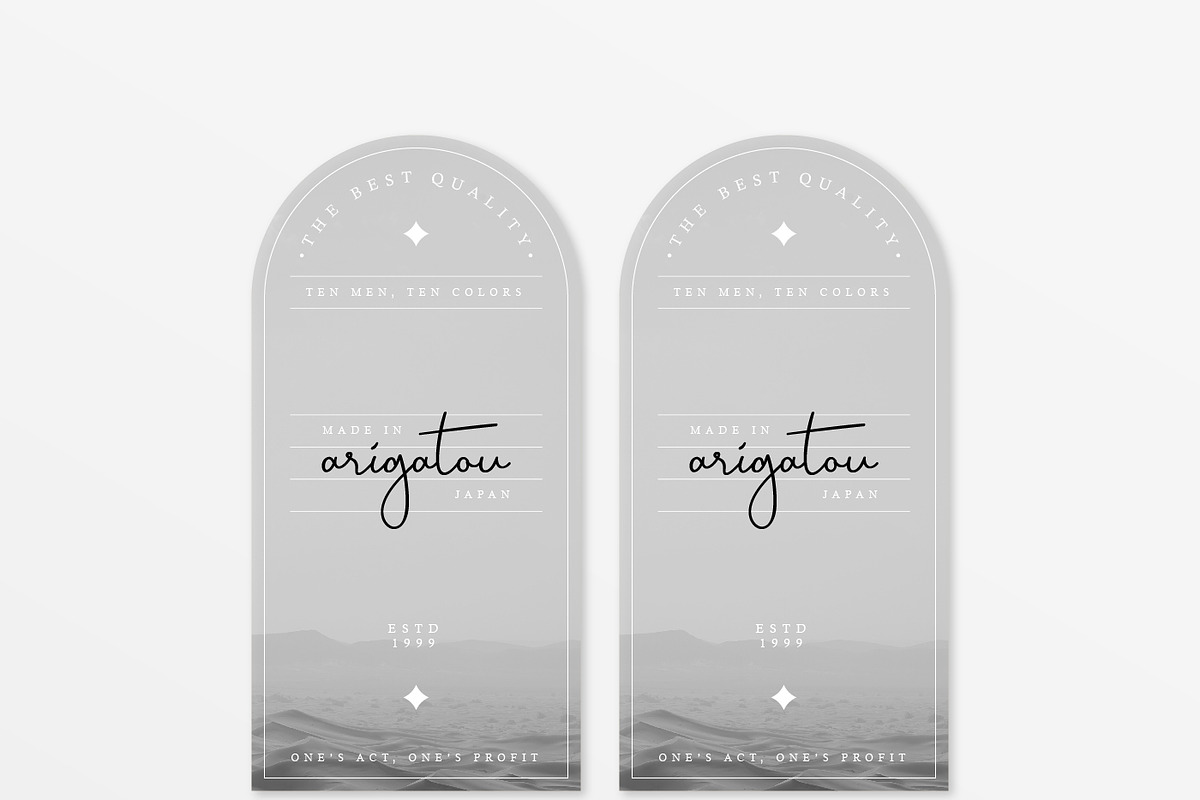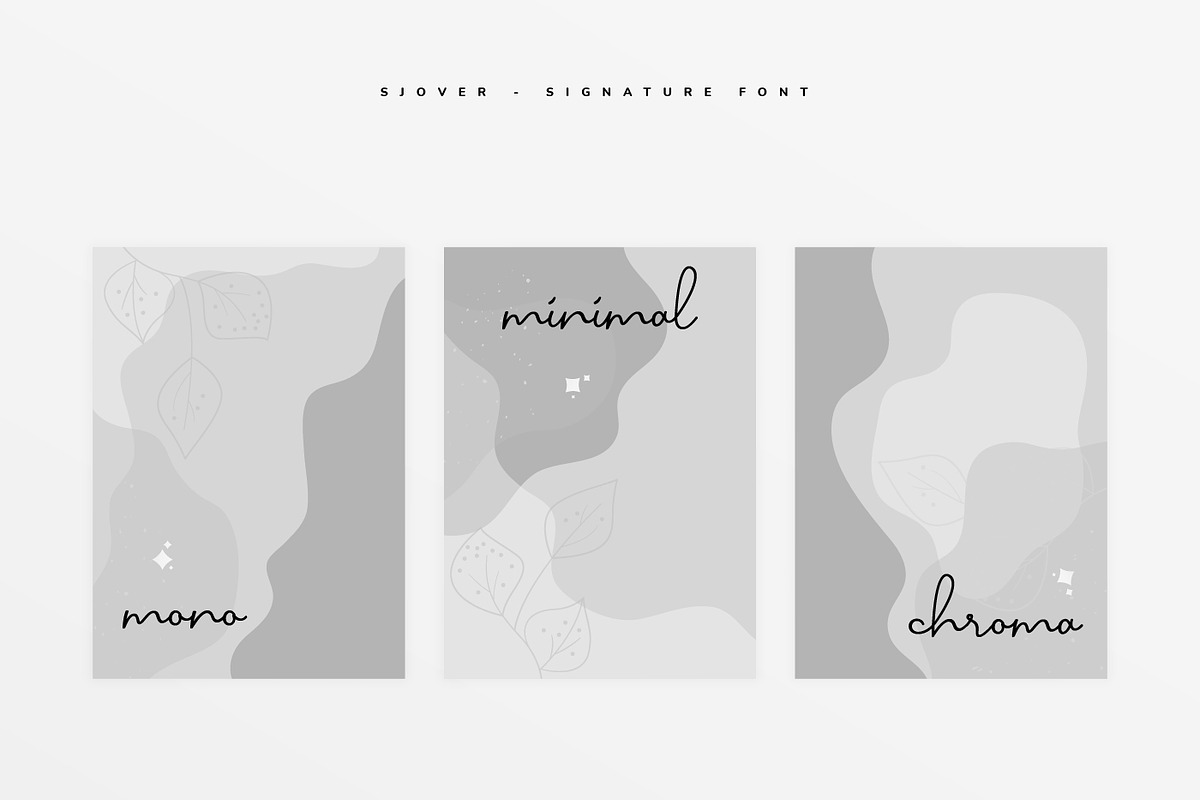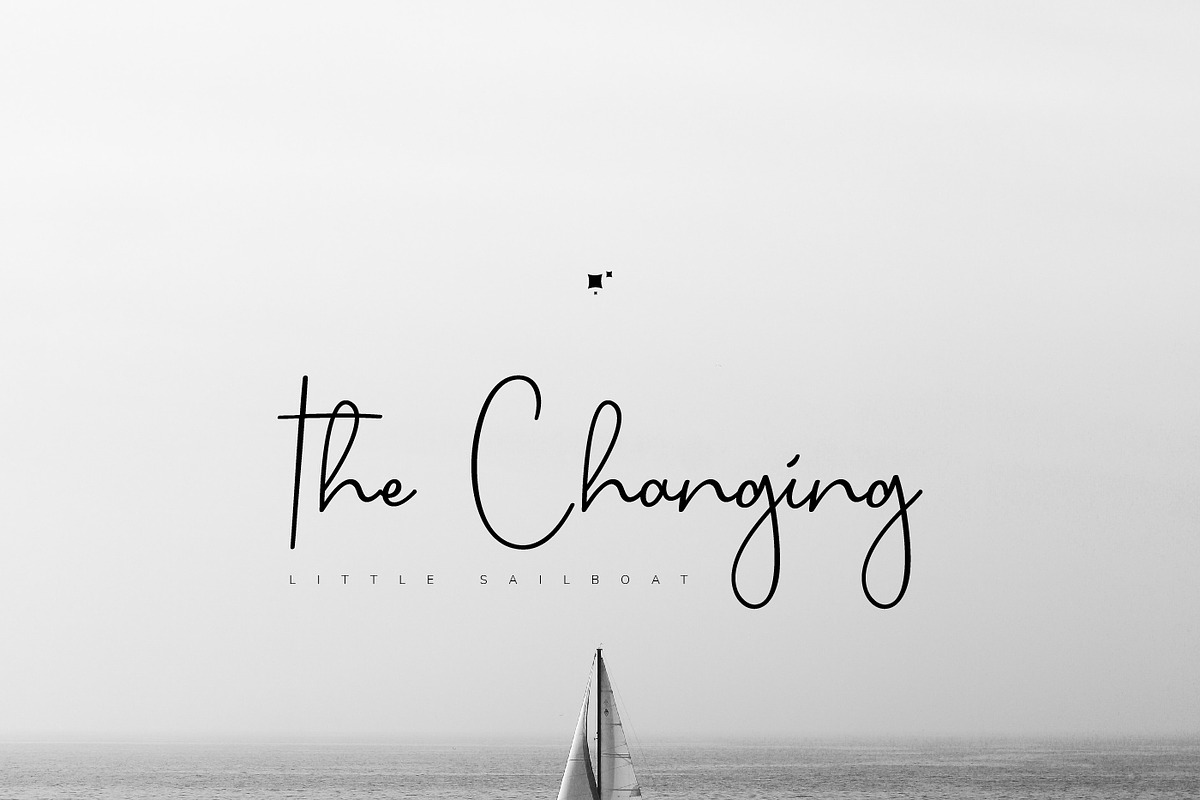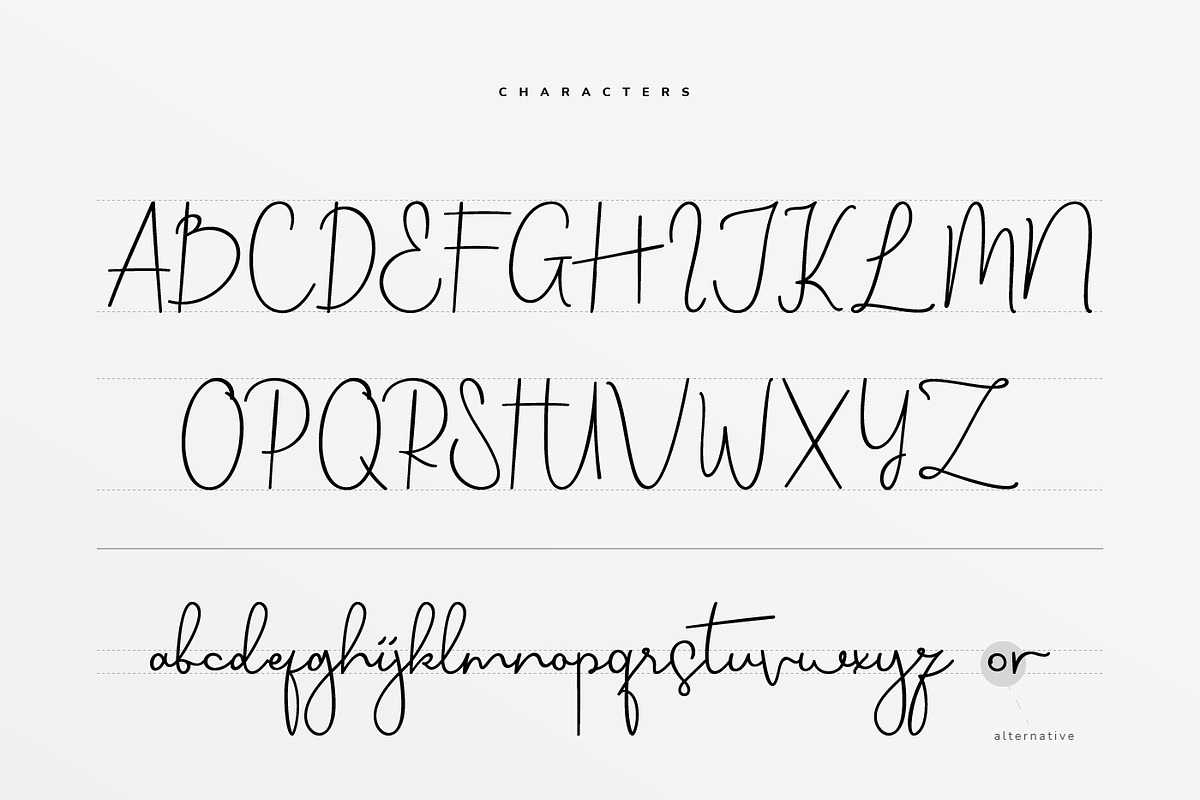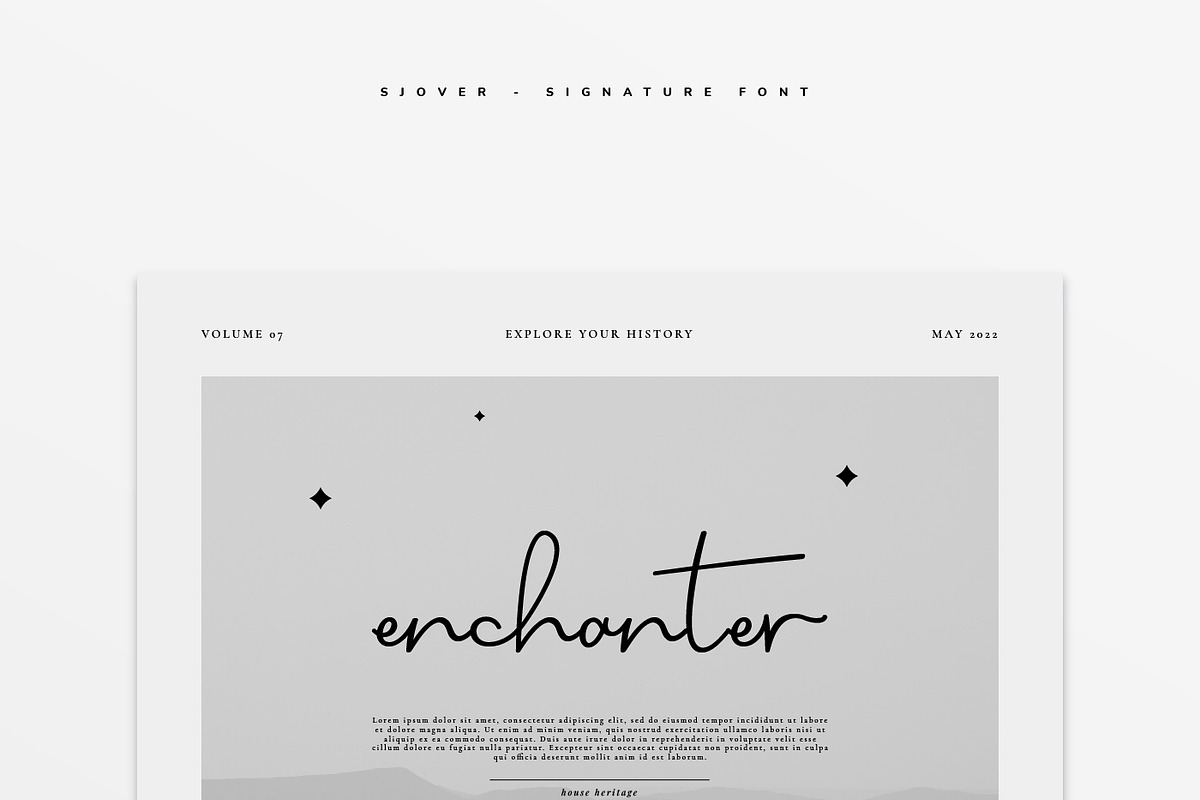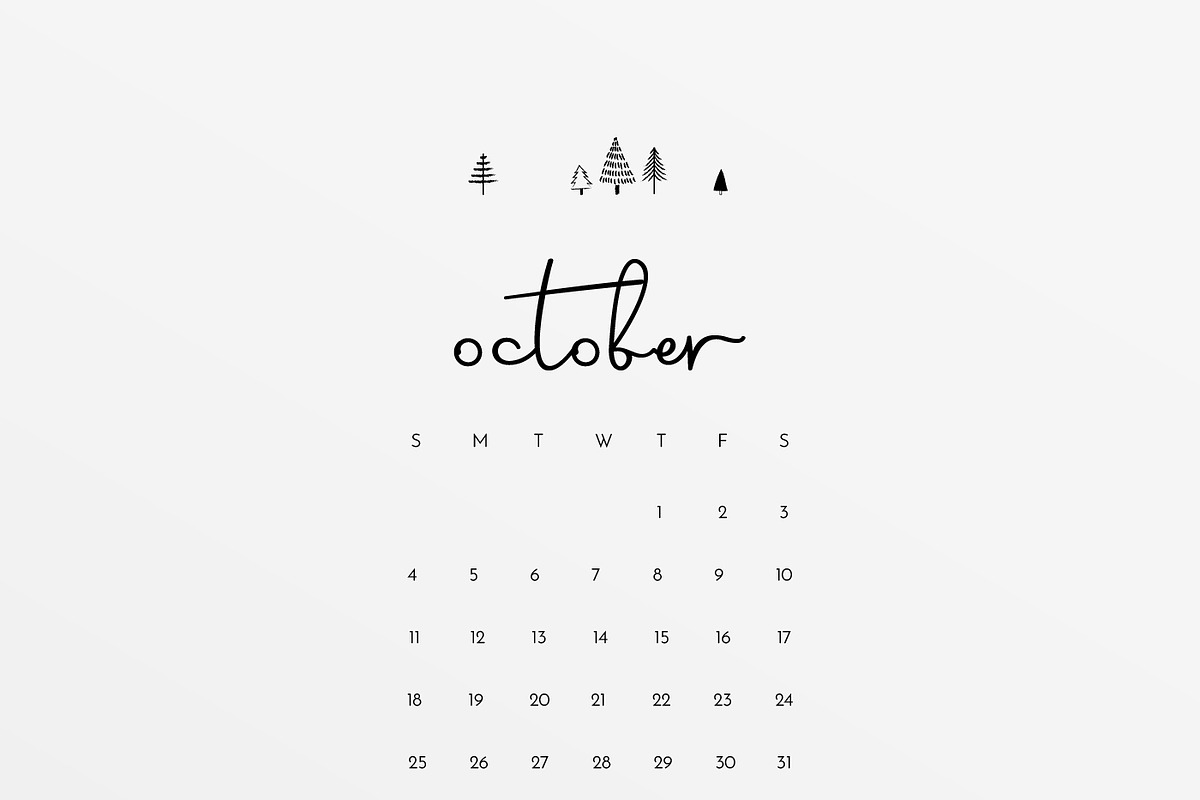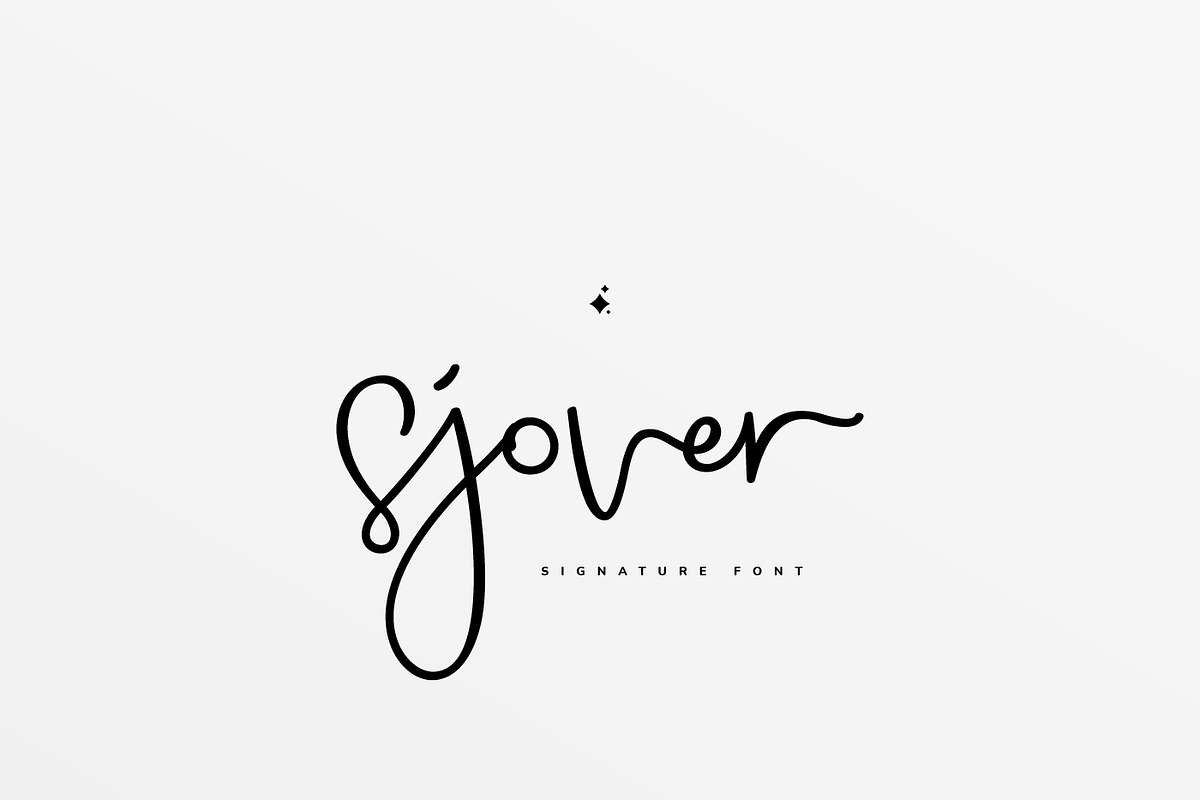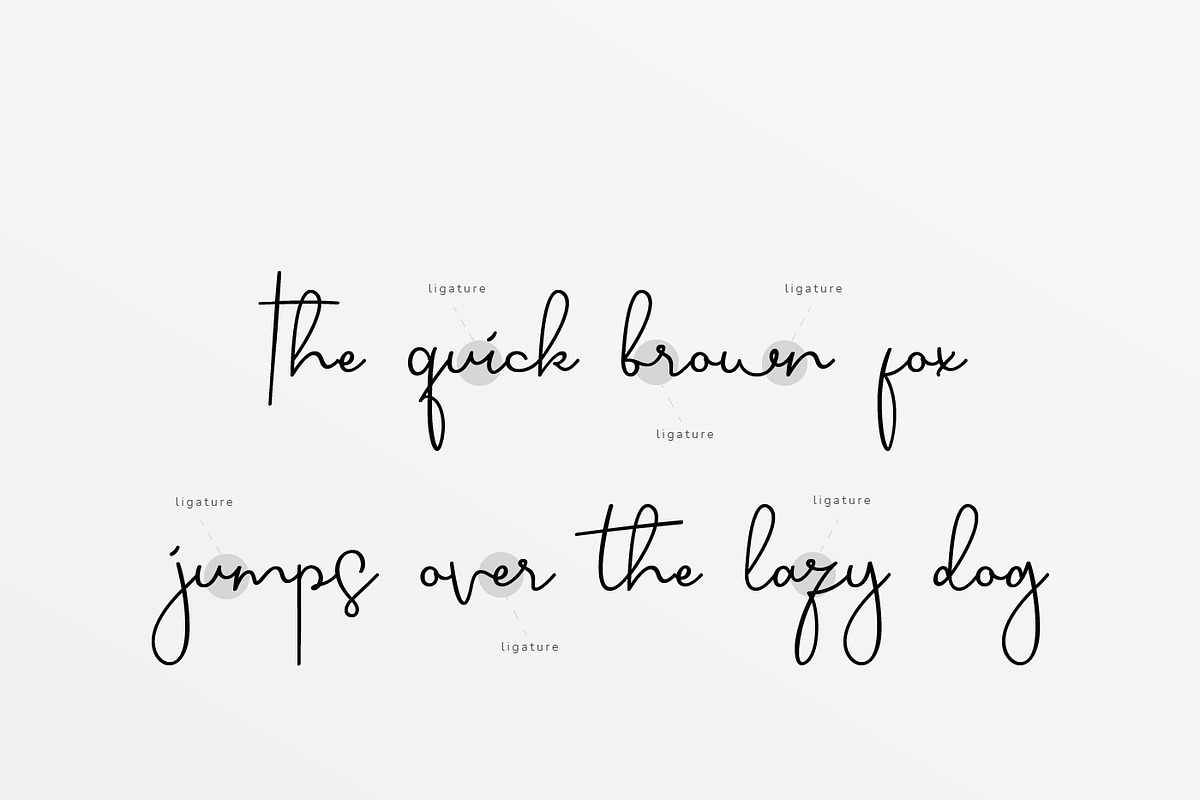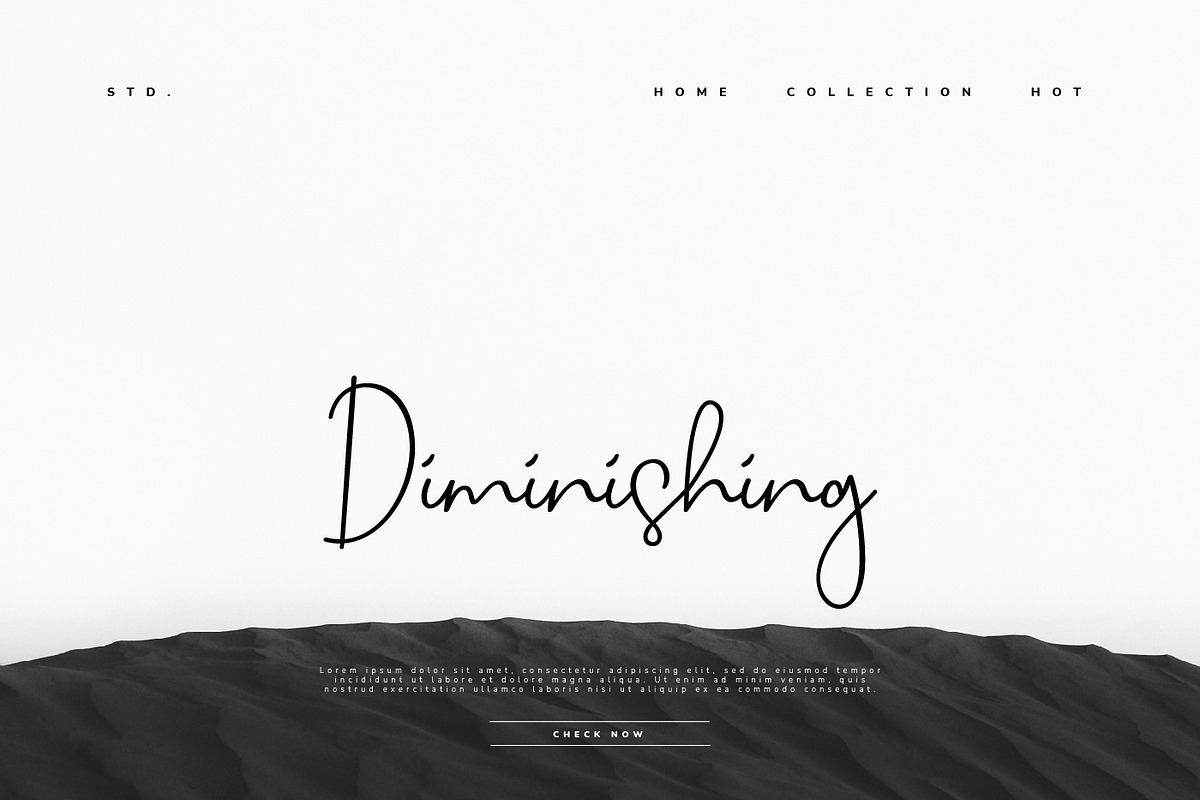
Sjover Handwritten Script Font
Introducing the fresh Script Signature font design, Sjover. Made in 2022. Inspired and designed as ink pen written, "Sjover" brings classic, retro, elegant, and simple feels. It is appropriate use for lettering, wedding projects, pamphlets, invitations, and other design or project which need classic and simple vibes. "Sjover" will make the design look irresistible and elegant.